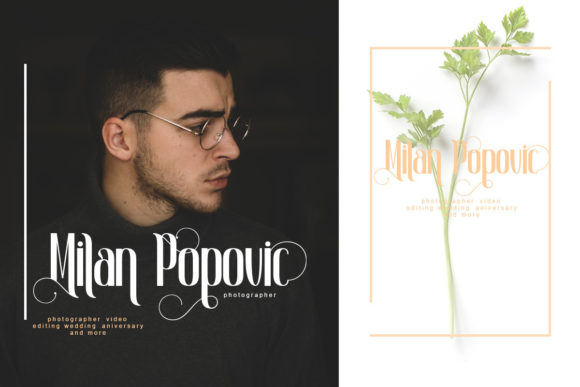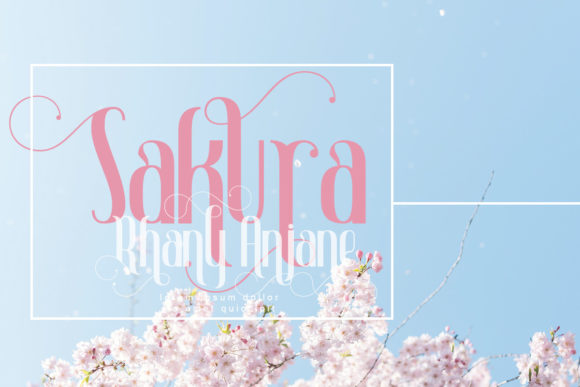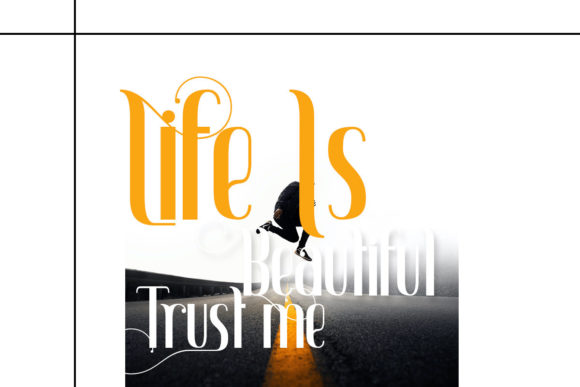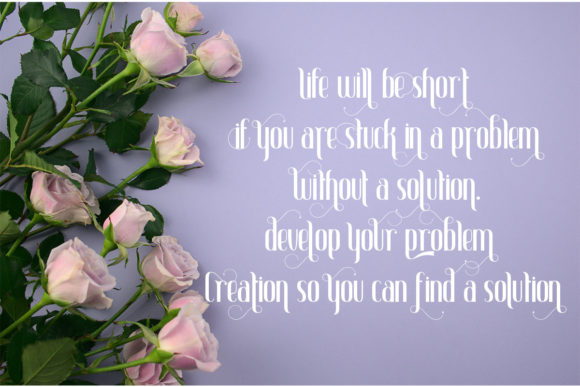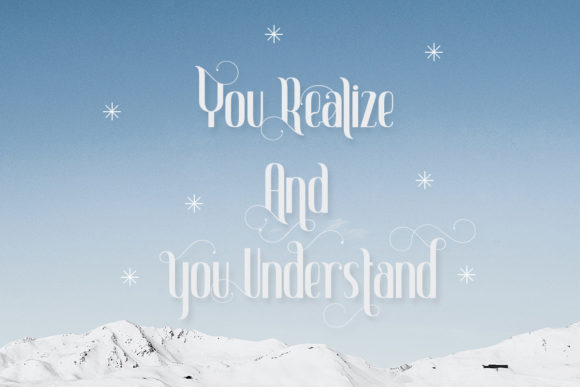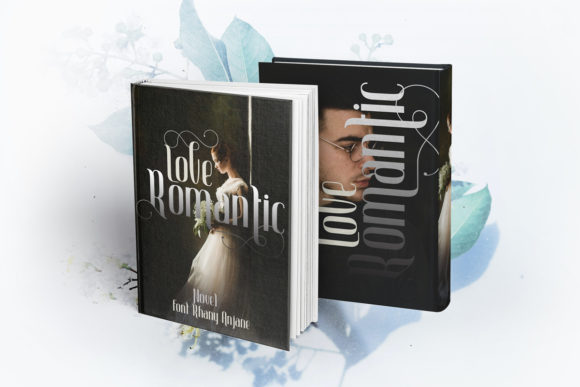
Introduction to Rhany Anjane Font
Imagine you’re working on a creative project, and you’re in the middle of designing a stunning visual element that needs the perfect touch. You’re browsing through your design resources, searching for that one font that will elevate your project to the next level. And then, you stumble upon it – the Rhany Anjane Font. This unique and distinct display font is about to become your new best friend in the world of design.
With its PUA encoding, you’ll have access to all the glyphs and swashes you need to create something truly breathtaking. Whether you’re working on a logo, a brochure, or a social media campaign, the Rhany Anjane Font will add a touch of sophistication and elegance to your design. And the best part? It’s available for free download, making it an invaluable resource for designers of all levels.
Key Features of Rhany Anjane Font
- High-quality design resource for creative projects, perfect for those seeking a unique and elegant touch.
- Designed to be highly legible, even at small font sizes, making it suitable for a wide range of creative projects.
- Includes a comprehensive character set, covering a wide range of languages and special characters.
Honest Review: Rhany Anjane Font
I recently had the chance to work with the Rhany Anjane Font, and I must say, it’s been a game-changer for my design projects. This beautiful font is perfect for any creative project that requires a unique and elegant touch.
Here’s what works well: ✨
- Easy to use and customize for any design resource
- Works well with a transparent background, allowing for maximum flexibility
However, there are some limitations: ⚠️
- Might not be suitable for very small text sizes due to its elegant design
- May require some tweaking to get the perfect look for your design resource
Overall, I’m really impressed with the Rhany Anjane Font. Its high quality and elegant design make it a valuable addition to any design toolkit. If you’re looking for a font that will add a touch of sophistication to your creative project, I highly recommend giving it a try.
To get the most out of the Rhany Anjane Font, use it in combination with other high-quality design resources. Experiment with different font sizes, colors, and backgrounds to create unique and eye-catching designs.
The Rhany Anjane Font is commonly used in various creative projects, including logos, brochures, business cards, and social media graphics. Its high-quality design and transparent background make it an ideal choice for designers who want to create professional-looking designs.